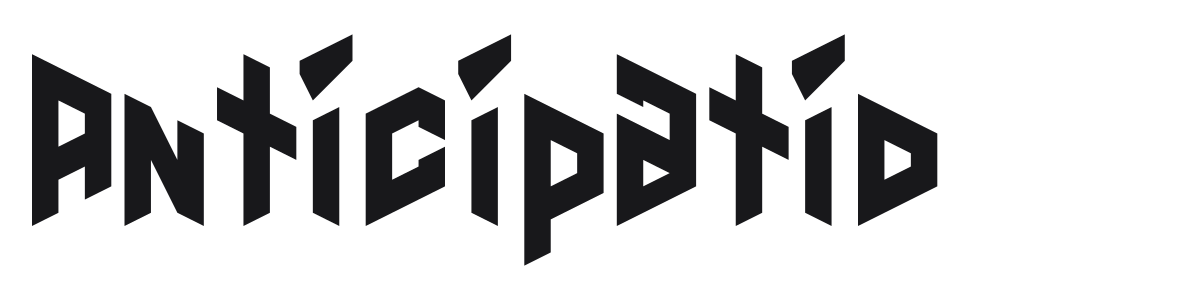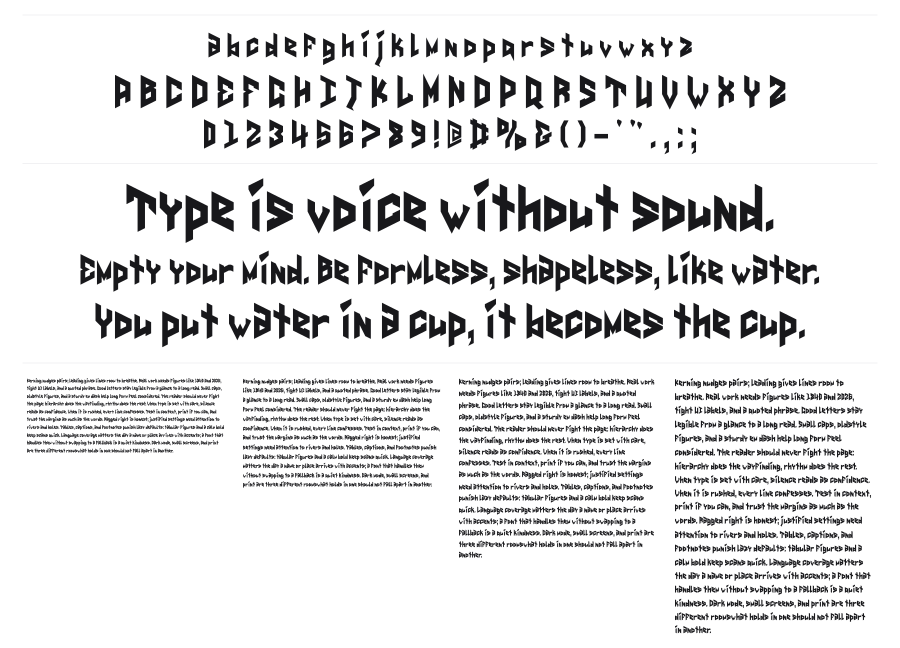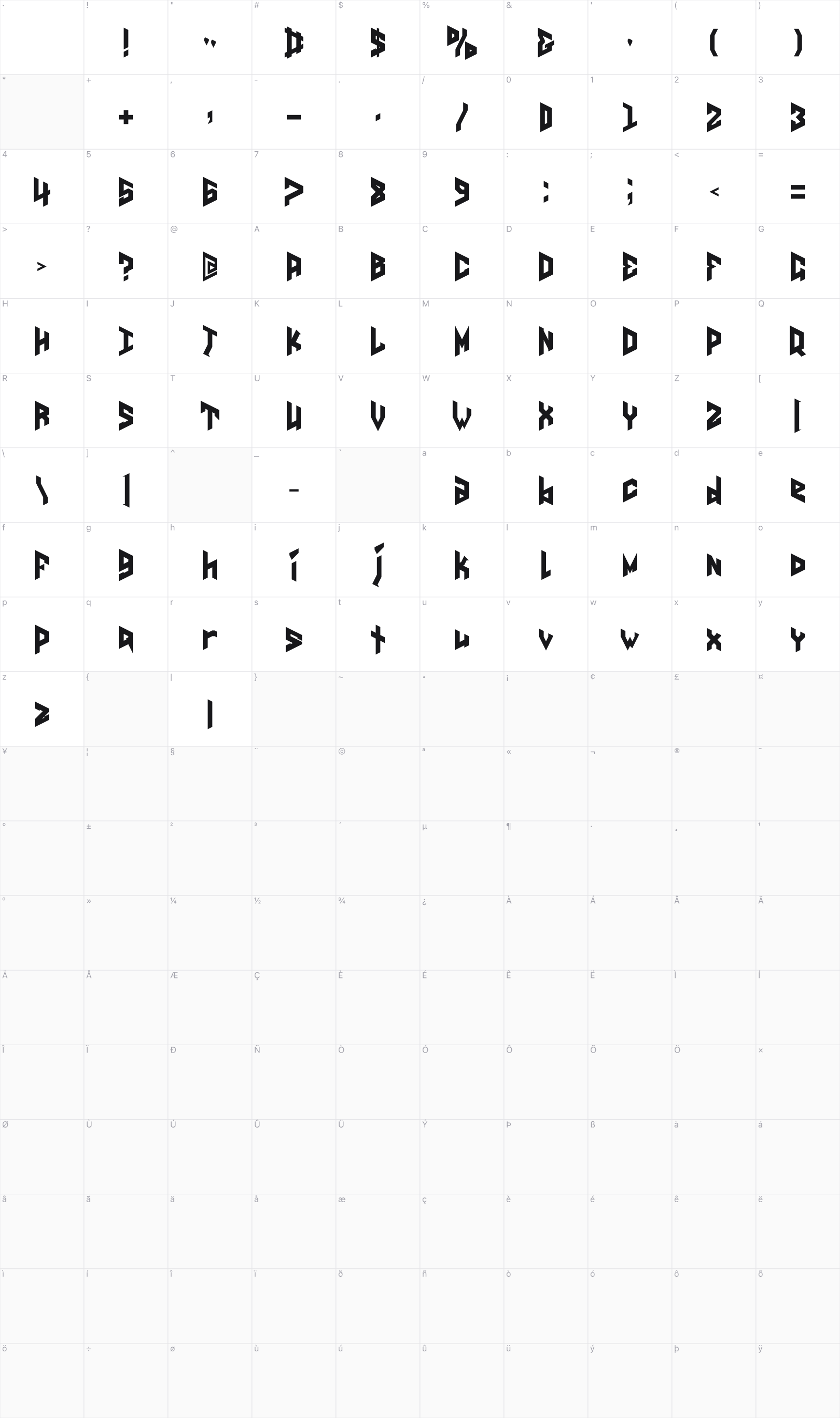
Anticipatio
Anticipatio is a bold angular display font built entirely from sharp wedge shapes and aggressive cutouts. Every character feels like it was carved from a hard surface at odd angles, giving text a splintered, high-tension texture. It thrives on posters, album covers, and anywhere the design calls for raw, unconventional energy.